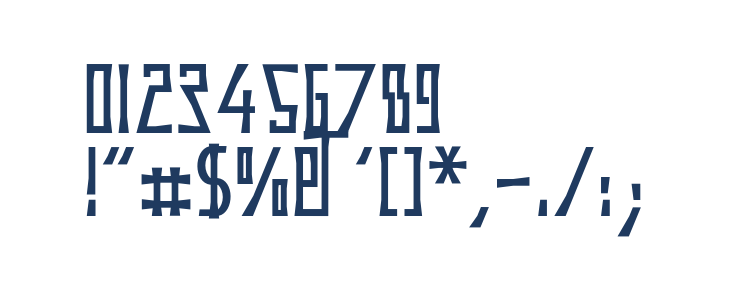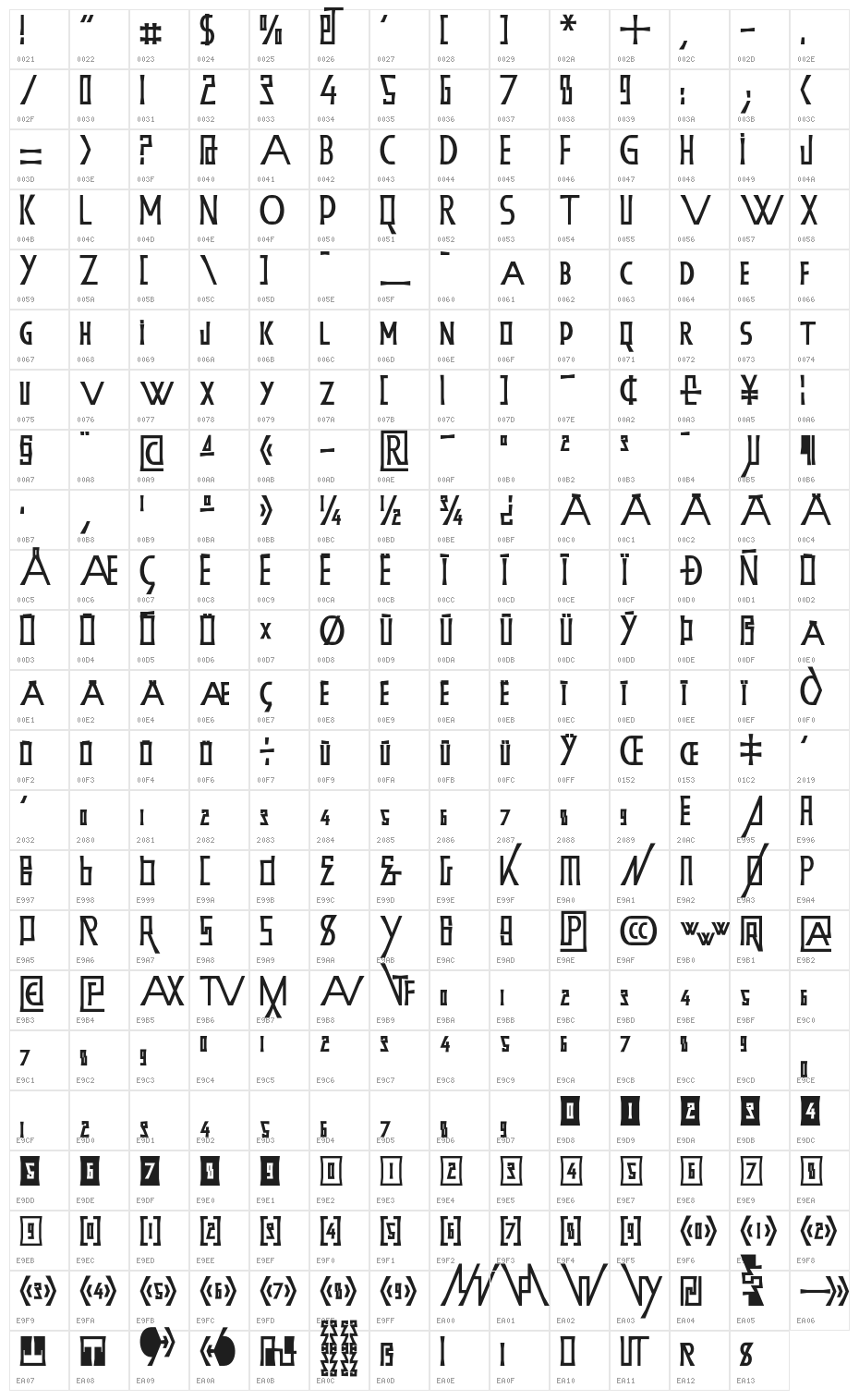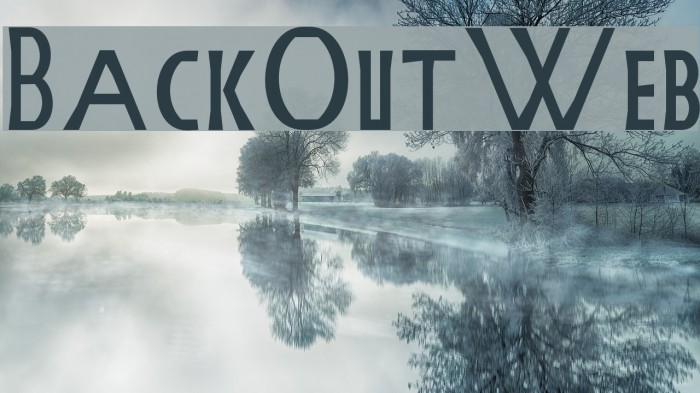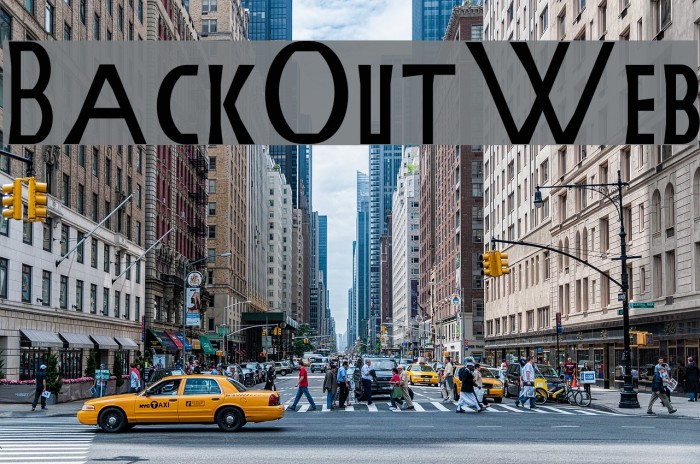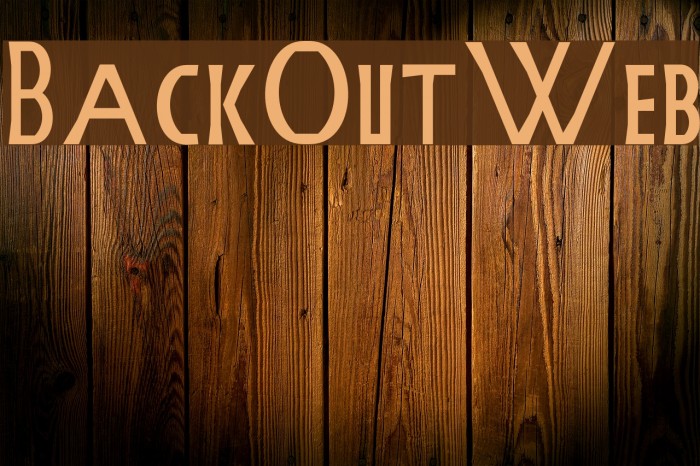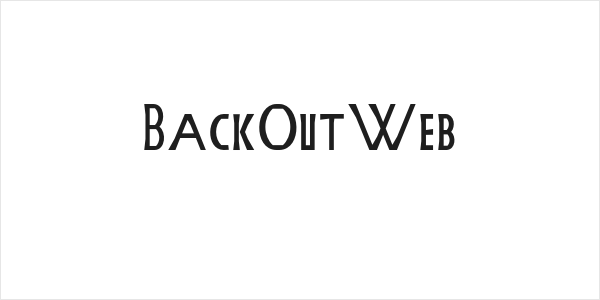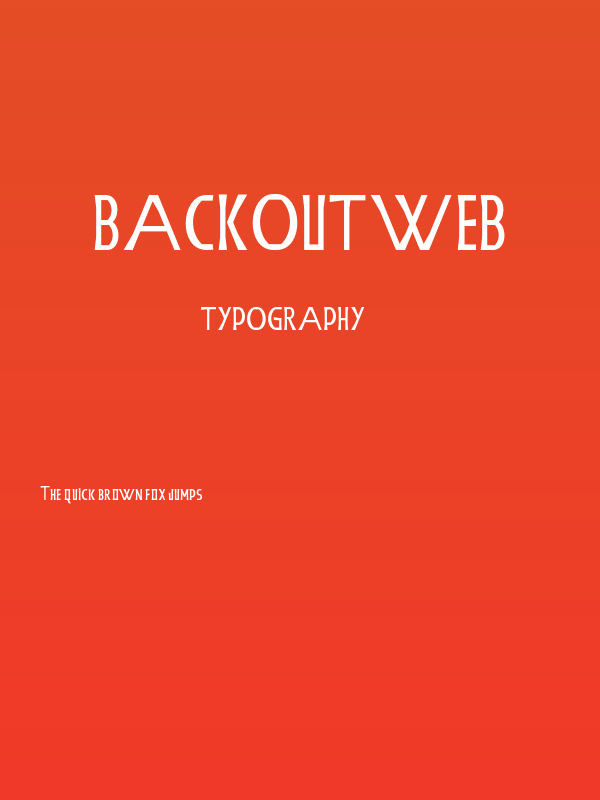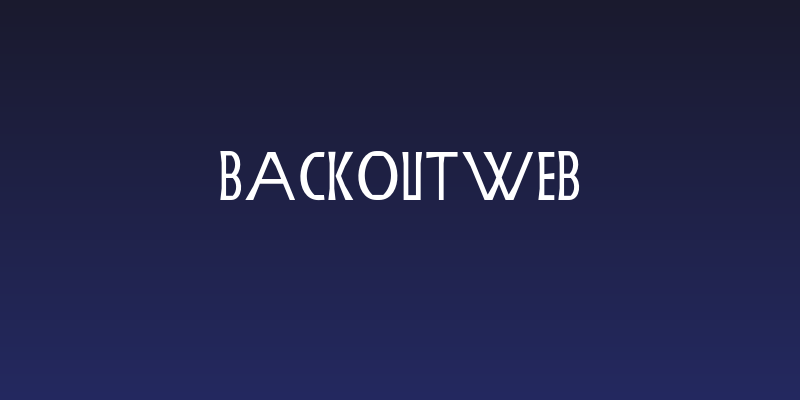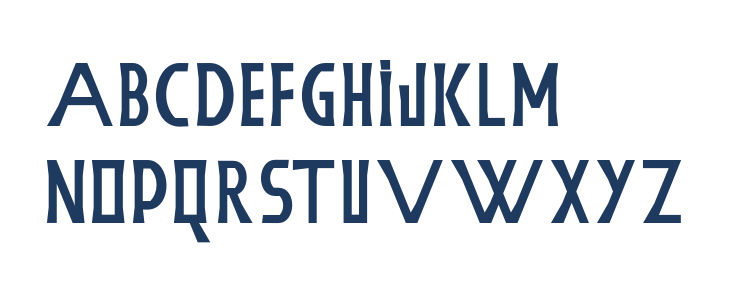
BackOutWeb Font
BackOutWeb Description
This font features a bold and angular design, characterized by sharp edges and a geometric structure. The uppercase letters are distinct with a slightly condensed form, giving them a modern and edgy appearance. The lowercase letters maintain the same angular style, ensuring consistency throughout the typeface. Numbers are uniquely styled, with a futuristic touch that complements the overall aesthetic. Special characters are designed to match the boldness and sharpness of the letters, making this font suitable for attention-grabbing designs. The font's unique style makes it ideal for projects that require a modern and dynamic look.